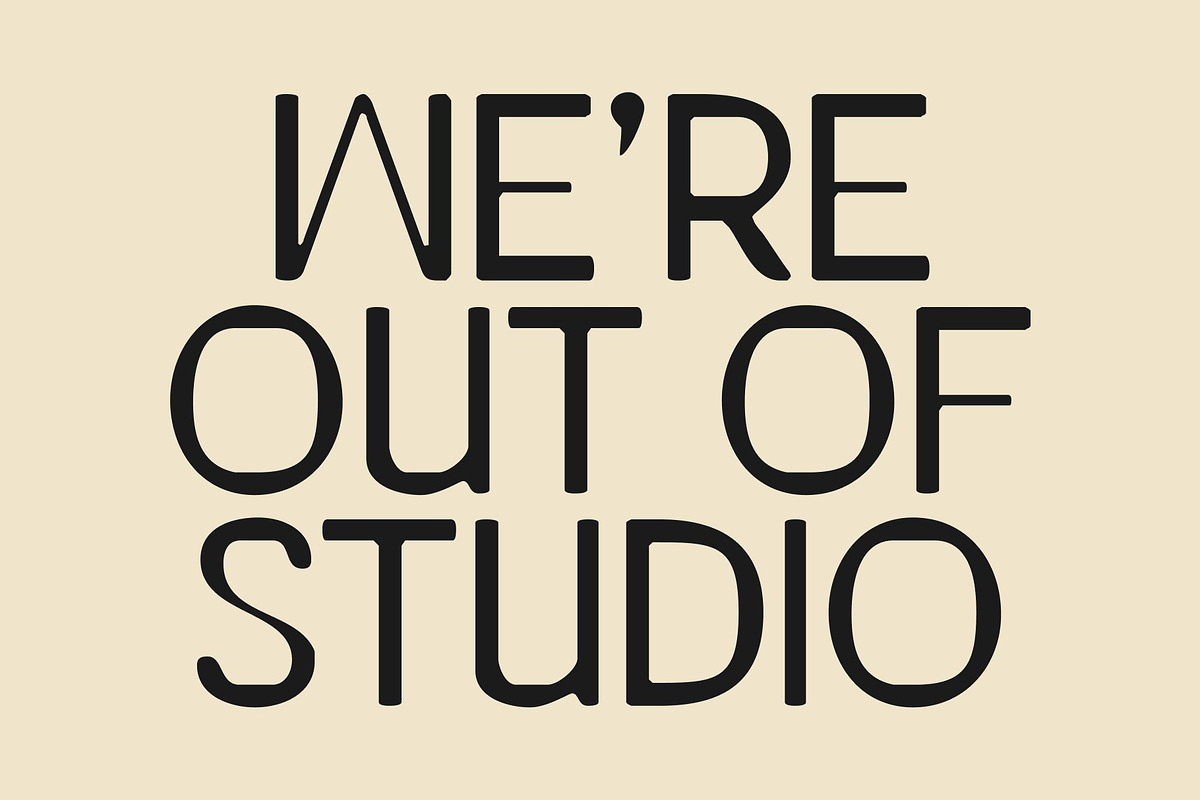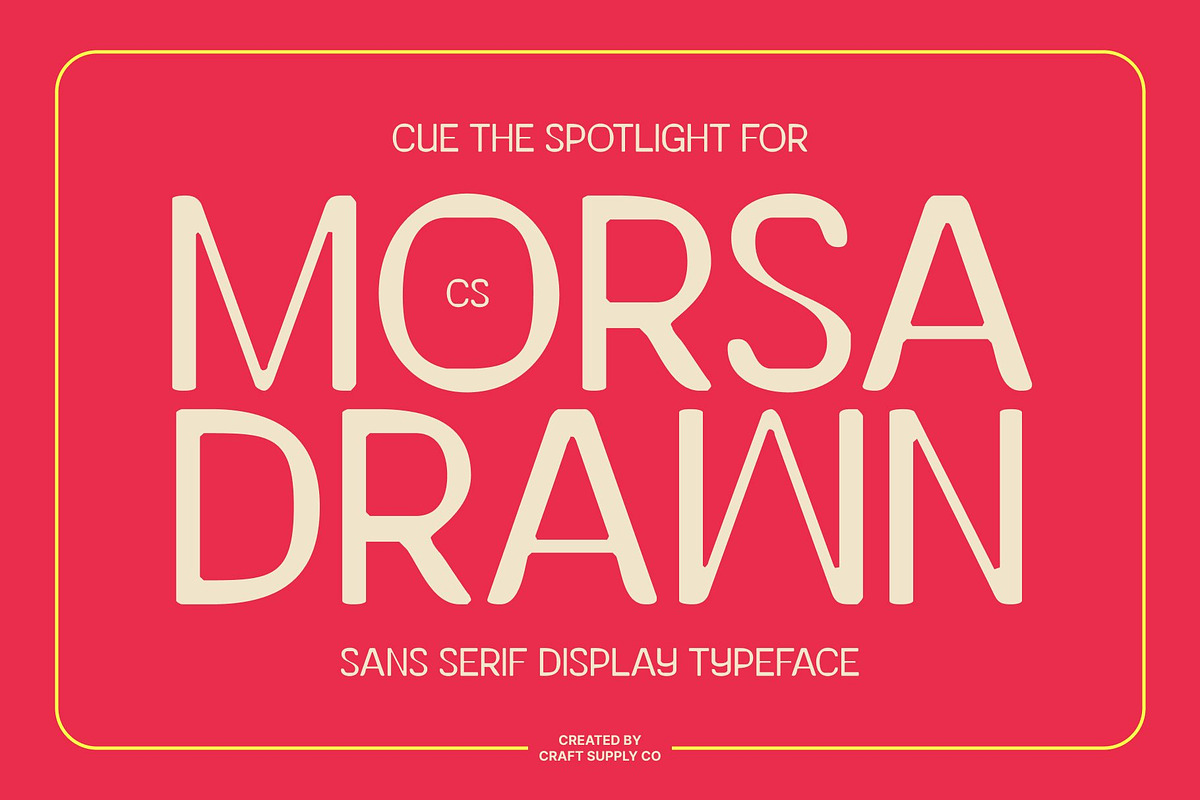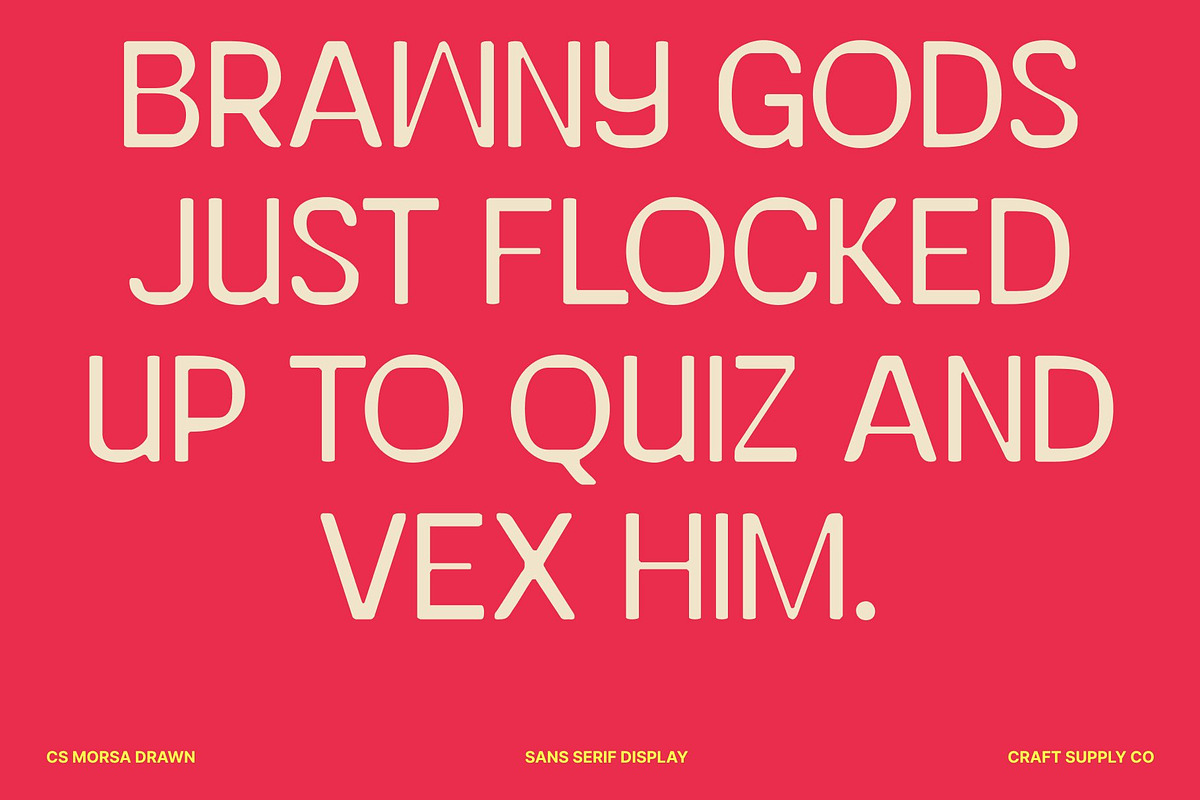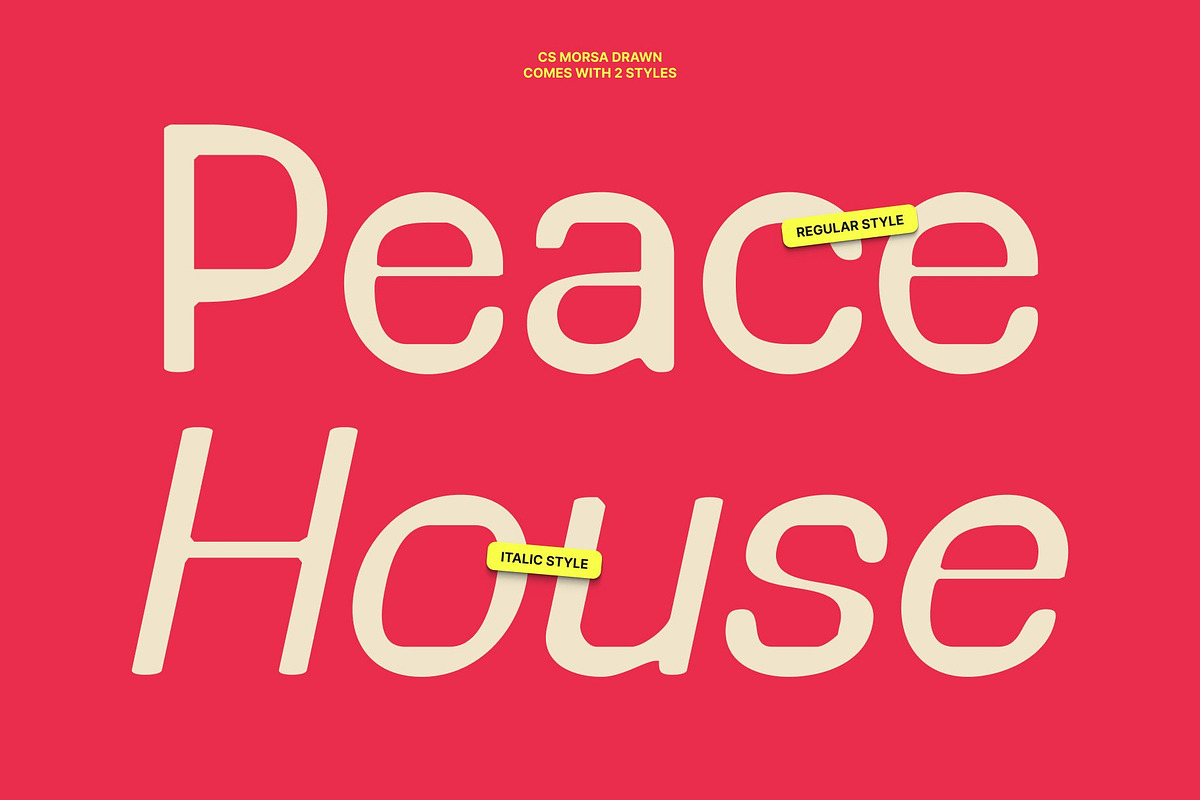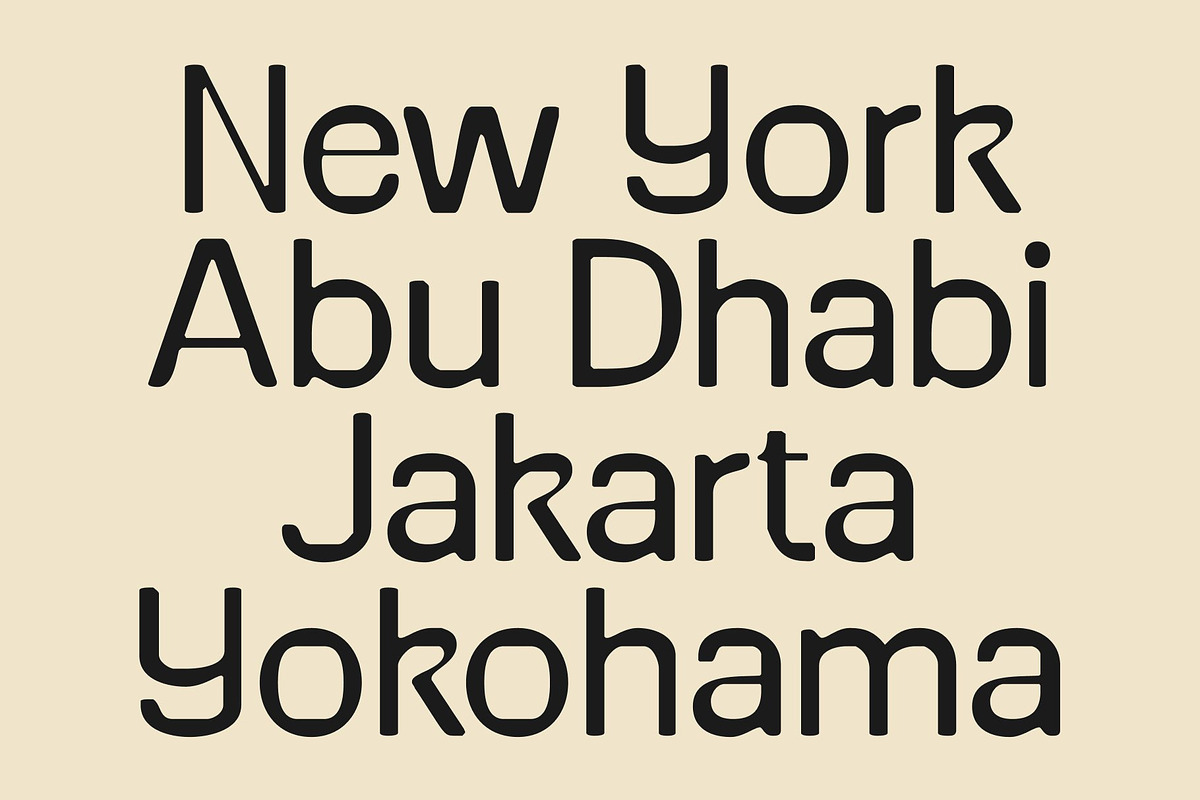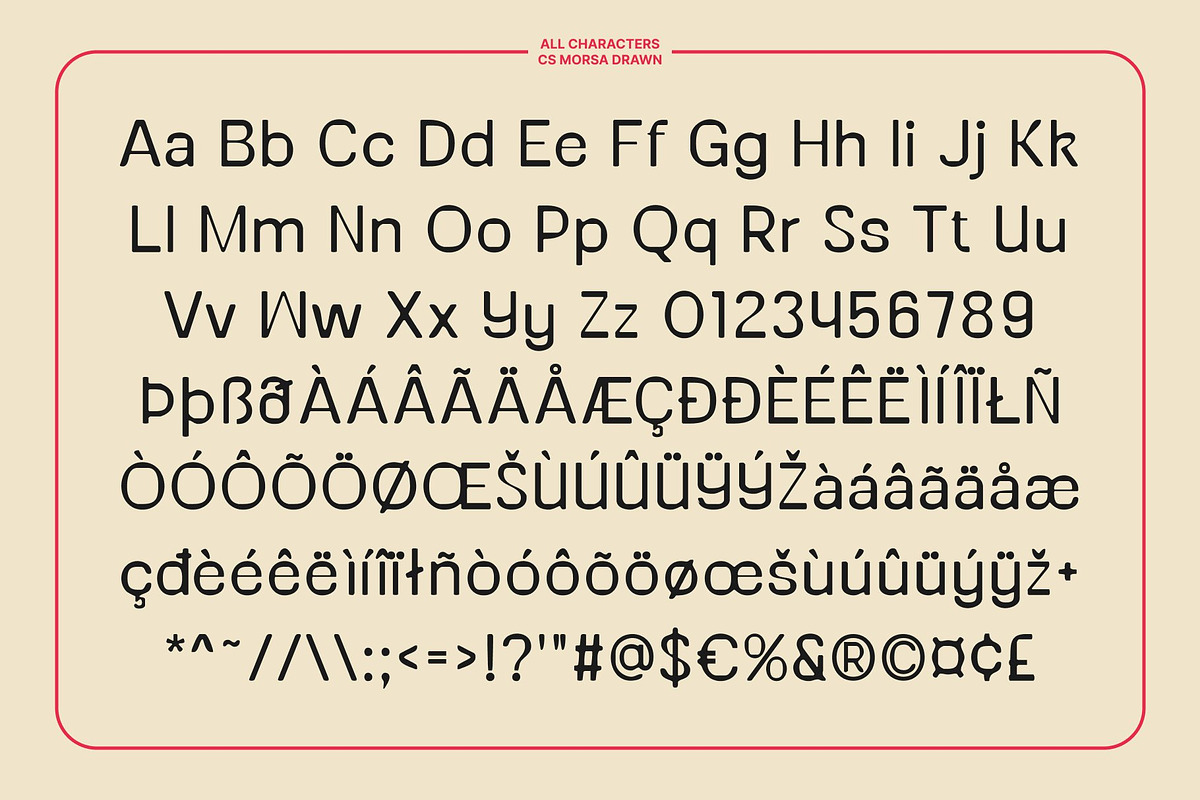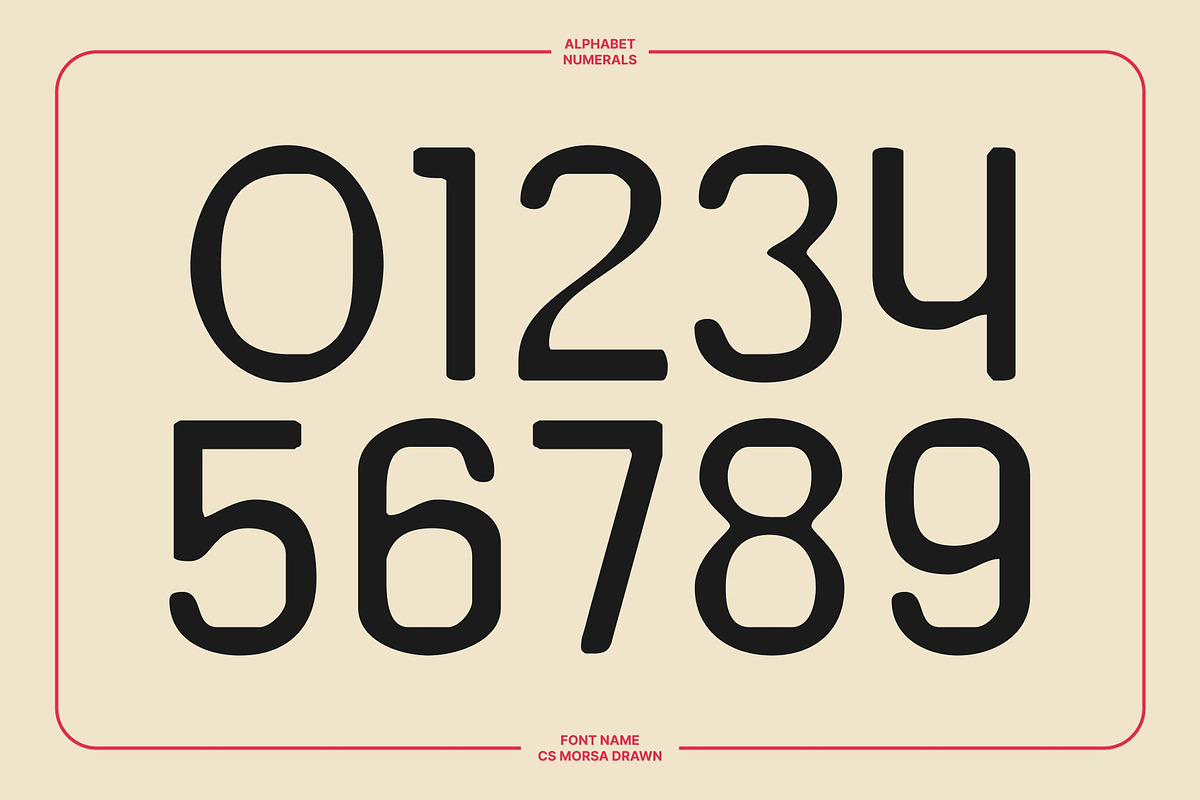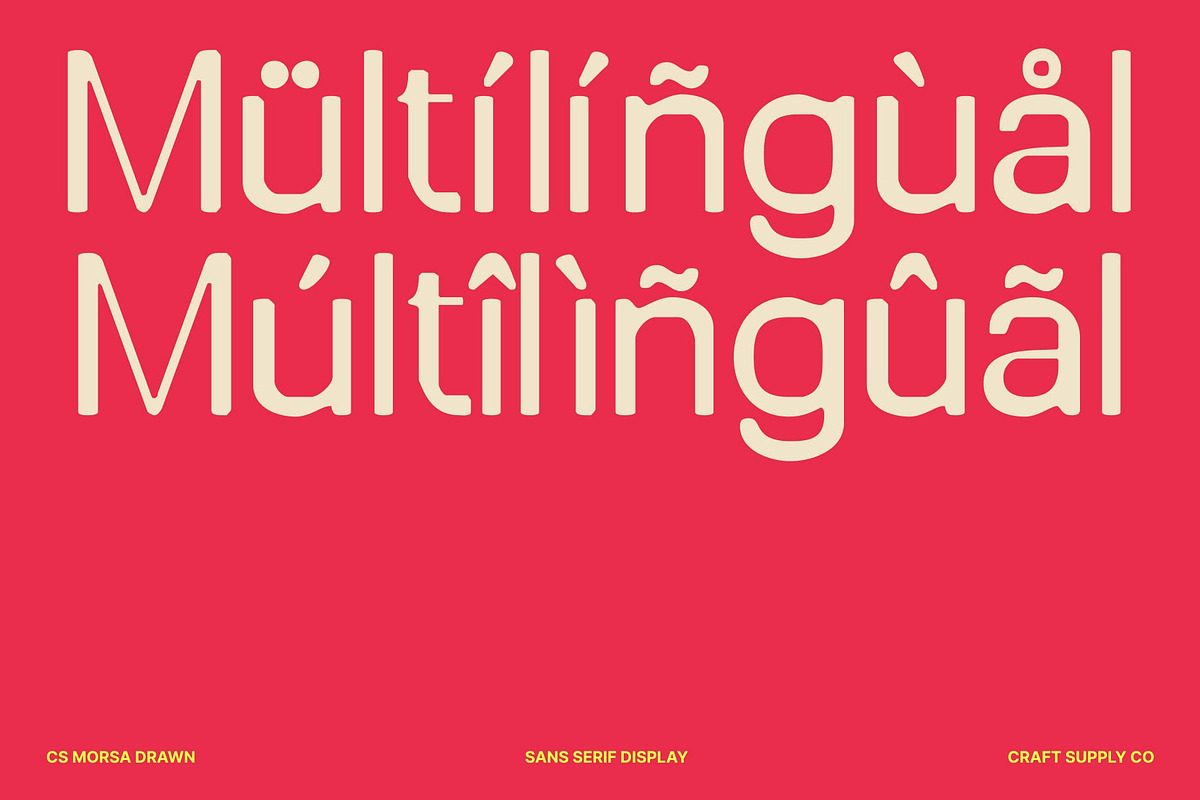
CS Morsa Drawn
CS Morsa Drawn – Contemporary Clarity with Stylish Character
Modern Sans Serif with Hybrid Design and Hand-Drawn Detail This is a modern sans serif font crafted with a hybrid approach that blends clean structure and contemporary style, enriched with a subtle hand-drawn texture. Its balanced construction delivers professionalism without feeling rigid, while the drawn finish introduces warmth and individuality. The result is a refined yet approachable typographic voice that feels modern, confident, and visually engaging.
Clean Forms with Artistic Flexibility Built on precise lines and thoughtful proportions, the letterforms ensure excellent readability across various layouts. Subtle stylistic nuances and gentle drawn variations add personality and depth, preventing the font from appearing too mechanical. This harmony between clarity and expression allows the typeface to feel polished while still creative and full of character.
Professional Tone with Modern Warmth This font communicates credibility with effortless sophistication. Its contemporary design feels stylish and current, while the handcrafted texture softens its structure with an organic touch. The font adapts seamlessly to headlines, subheadings, and supporting text, offering flexibility for expressive yet professional visual storytelling.
Perfect for Branding, Editorials, and Creative Projects Designed for versatile modern applications, this font ideal for branding, posters, editorials, packaging, and creative campaigns. Its hybrid sans serif style with a drawn character makes it perfect for modern brands, magazines, promotional materials, and layouts that seek stylish clarity with subtle artistic charm.
- CS Morsa Drawn Regular
- CS Morsa Drawn Italic